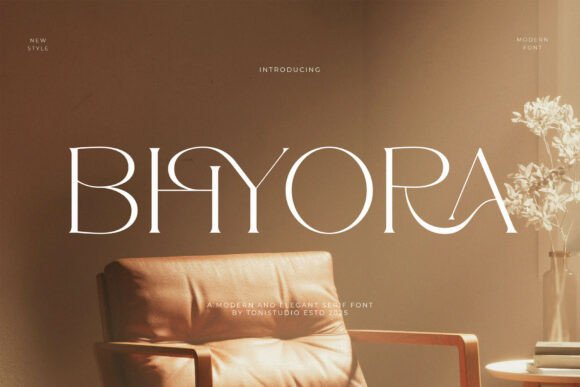
Introducing BHYORA: The Modern Serif Font for Timeless Elegance
In the world of typography, fonts play a crucial role in conveying the tone and personality of a brand or design project. For designers and crafters seeking to infuse their work with sophistication and elegance, BHYORA is a modern serif font that stands out from the rest. Inspired by the harmony between classic beauty and contemporary style, BHYORA is the perfect choice for those who want to make a lasting impression.
The Inspiration Behind BHYORA
BHYORA’s design is rooted in the perfect blend of traditional and modern elements. The font’s creator aimed to craft a typeface that would seamlessly merge sharp serifs with smooth curves, resulting in a unique and captivating visual identity. This thoughtful approach has yielded a font that exudes confidence, femininity, and luxury, making it an excellent choice for a wide range of design applications.
Key Features of BHYORA
So, what sets BHYORA apart from other serif fonts? Here are some of its key features:
- Timeless Elegance: BHYORA’s classic serif design ensures that your project will never go out of style.
- Smooth Curves: The font’s smooth curves add a touch of sophistication and refinement to its overall appearance.
- Sharp Serifs: BHYORA’s sharp serifs provide a sense of elegance and precision, perfect for designs that require a high level of detail.
- Feminine and Luxurious: The font’s carefully crafted characters convey a sense of femininity and luxury, making it ideal for fashion, beauty, and lifestyle brands.
BHYORA’s versatility makes it suitable for a wide range of design applications, including:
- Branding and Logos: Create a lasting impression with BHYORA’s elegant and sophisticated design.
- Editorial Design: Use BHYORA to add a touch of luxury to your publications, such as magazines, newspapers, and books.
- Fashion Projects: BHYORA is perfect for fashion brands, designers, and influencers looking to convey a sense of style and sophistication.
- Packaging Design: Make your product stand out with BHYORA’s unique and eye-catching design.
- Wedding Invitations: Add a touch of elegance and romance to your wedding invitations with BHYORA’s beautiful serif design.
Why Choose BHYORA?
With so many fonts available, why should you choose BHYORA for your next design project? Here are just a few reasons:
- Unique Design: BHYORA’s blend of sharp serifs and smooth curves sets it apart from other serif fonts.
- High-Quality Typography: Each character in BHYORA has been carefully crafted to ensure that your design looks professional and polished.
- Versatility: BHYORA can be used for a wide range of design applications, making it a valuable addition to any designer’s toolkit.
- Elegance and Sophistication: BHYORA’s timeless design ensures that your project will exude elegance and sophistication, making it perfect for designers who want to create a lasting impression.
| Font Name | Bhyora Font |
| Author | ToniStudio |
In conclusion, BHYORA is a modern serif font that offers a unique blend of classic beauty and contemporary style. With its sharp serifs, smooth curves, and elegant design, BHYORA is perfect for designers and crafters looking to add a touch of sophistication and luxury to their projects. Whether you’re working on a branding project, editorial design, or wedding invitation, BHYORA is sure to make a lasting impression.